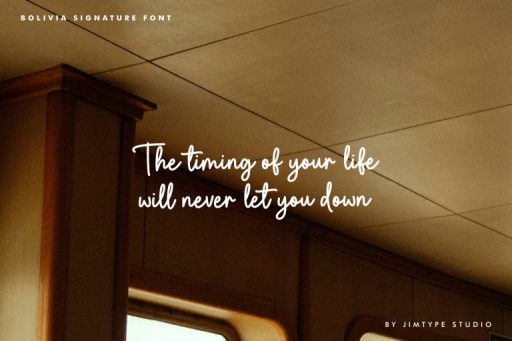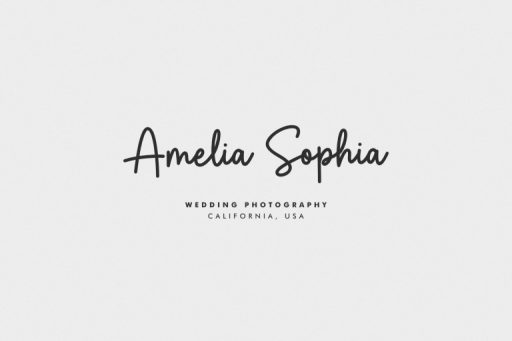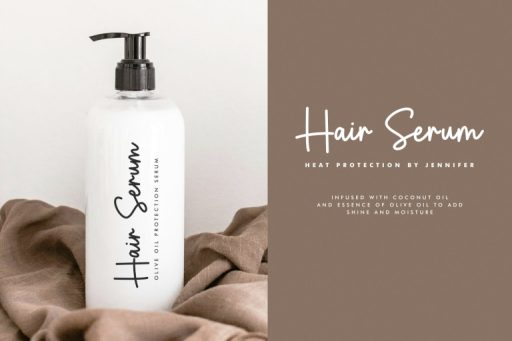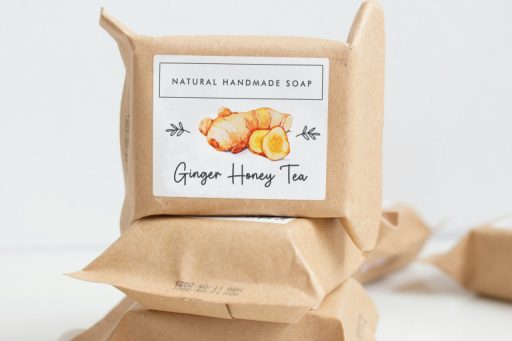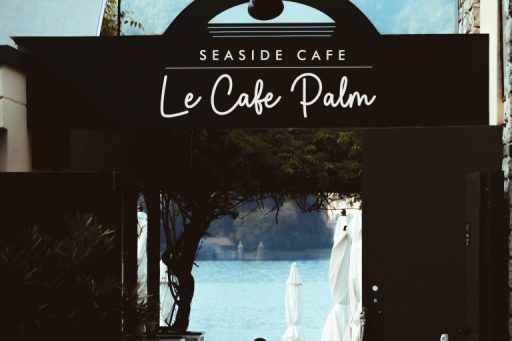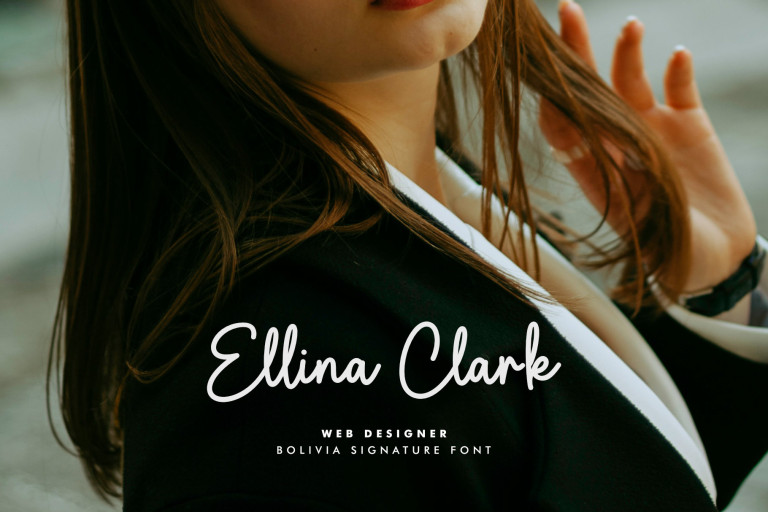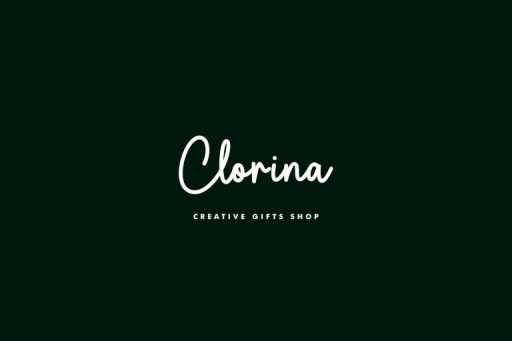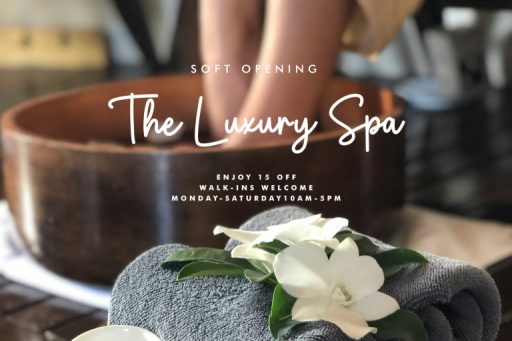
Bolivia Signature Font
Bolivia Signature Font – Business Branding Font from Jimtype Studio
Bolivia Script is a clean and casual font. This font is perfect for signature-style logos, display, branding, invitations, blogs, and planners. Adding a clean and casual signature-style touch to your projects couldn’t be easier!